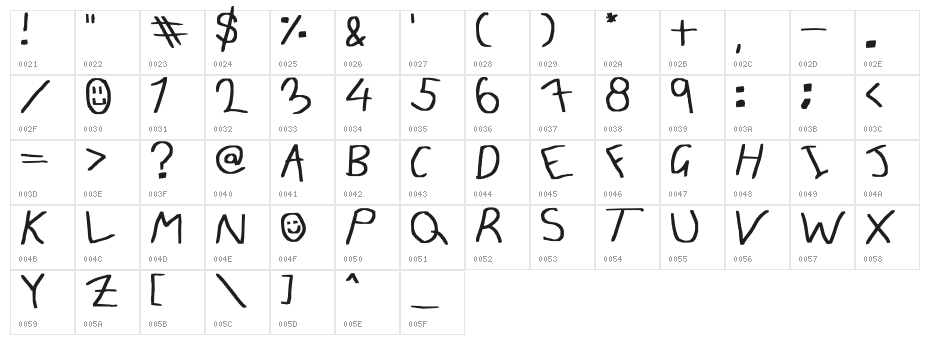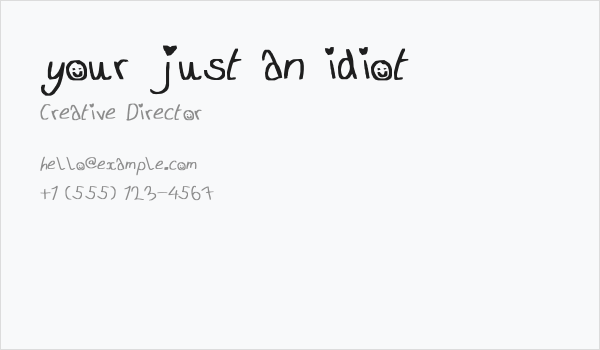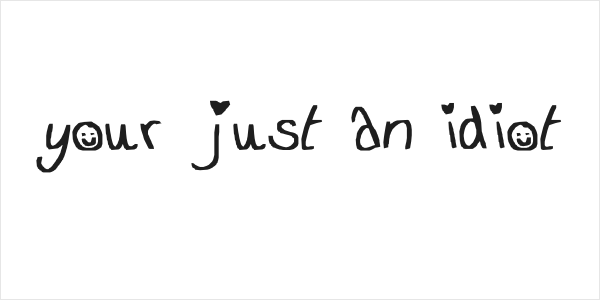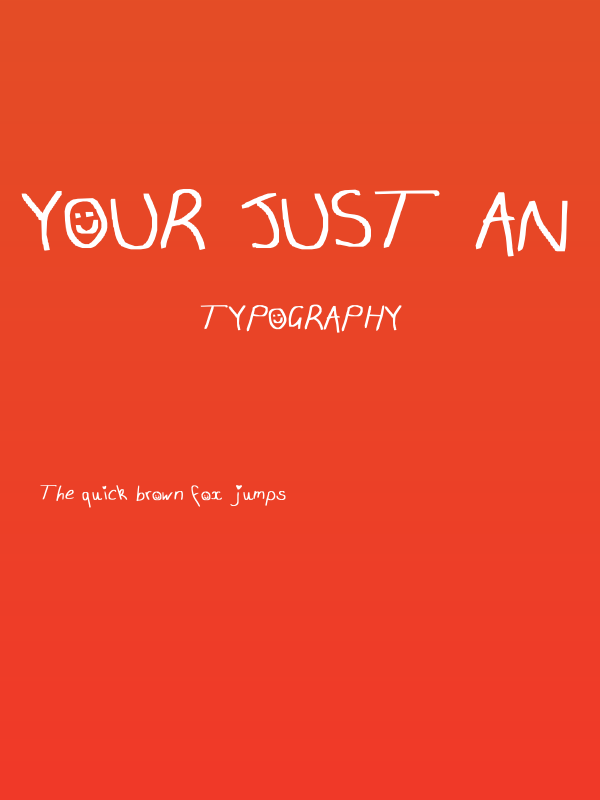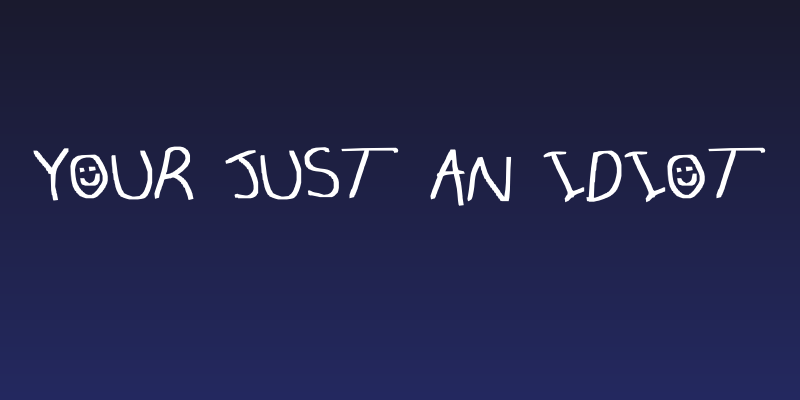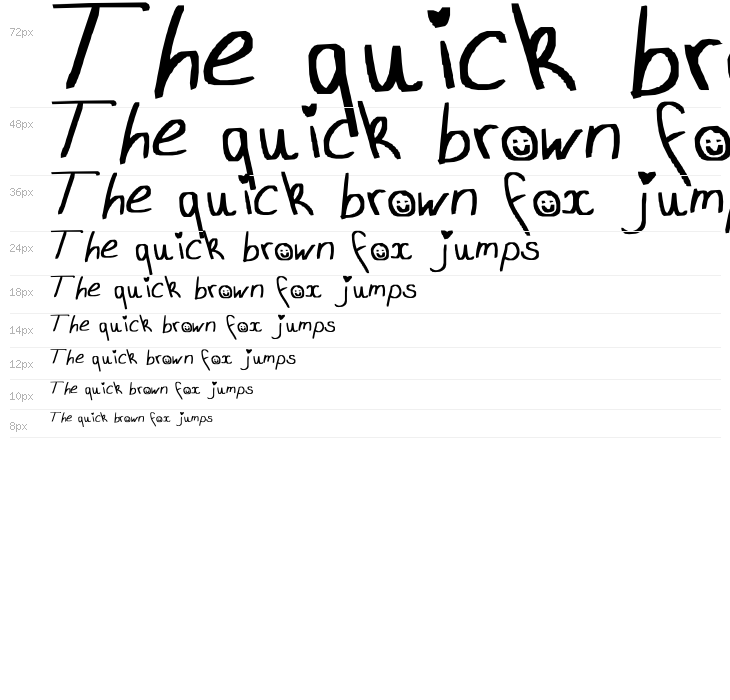
your just an idiot Font
your just an idiot Description
This playful and whimsical font features a hand-drawn style with irregular strokes and a casual appearance. The uppercase and lowercase letters exhibit a quirky charm, with some characters incorporating unique elements like smiley faces. The numbers and special characters maintain the same informal, doodle-like aesthetic, making it ideal for projects that require a fun and lighthearted touch. The font's uneven lines and varying stroke thicknesses contribute to its distinctive, informal look.
| Proposed Projects | Ideal for children's books, playful posters, greeting cards, and informal invitations. |